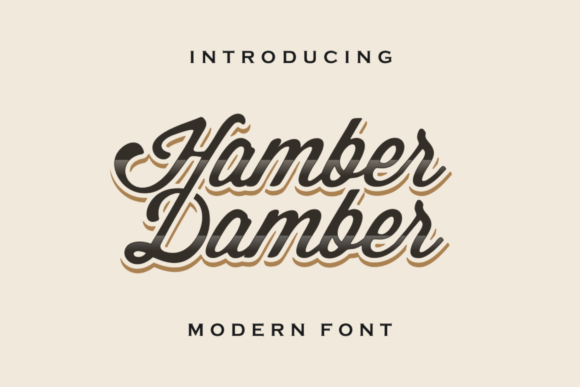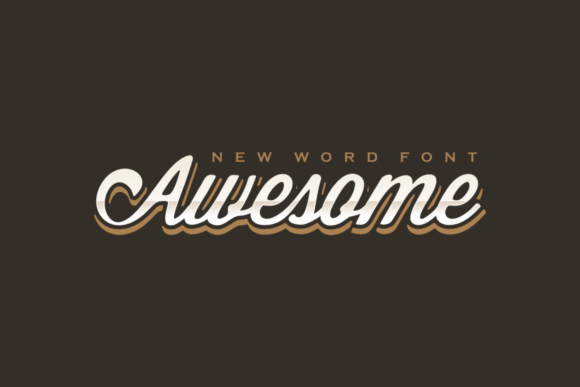
Hamber Damber Font
db-ku.com - Script & Handwritten -- Hamber Damber is a bold and authentic script font. The font is suitable for any branding project like logos, t-shirt printing, sports, and many more. It looks outstanding in a wide range of contexts.